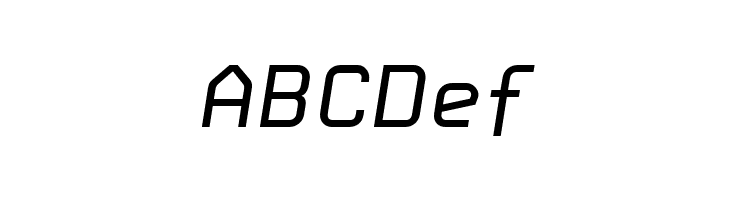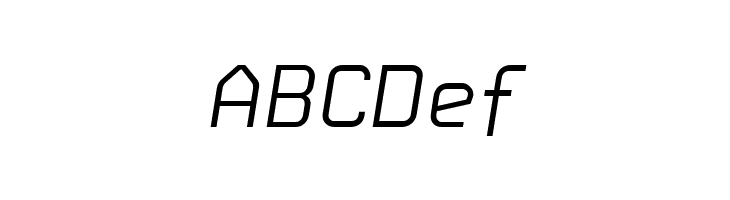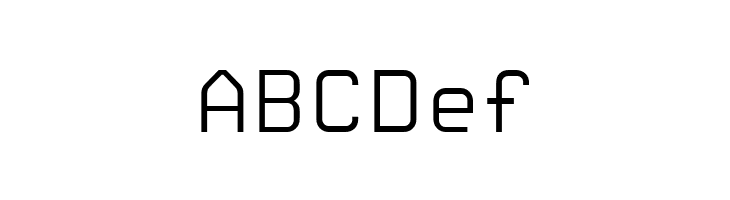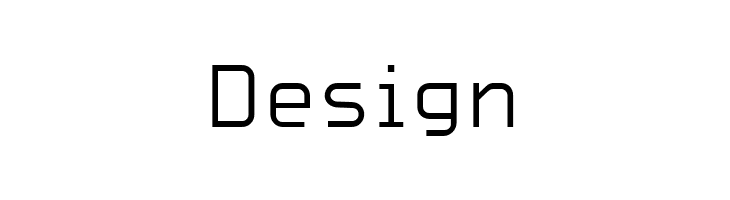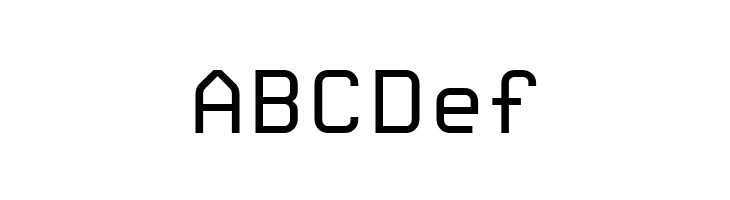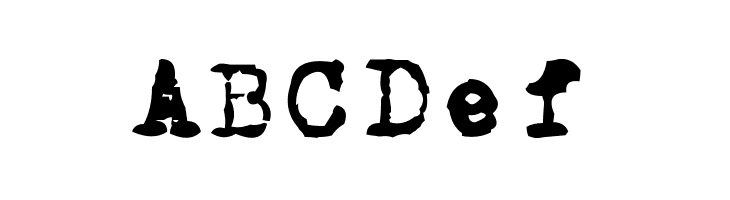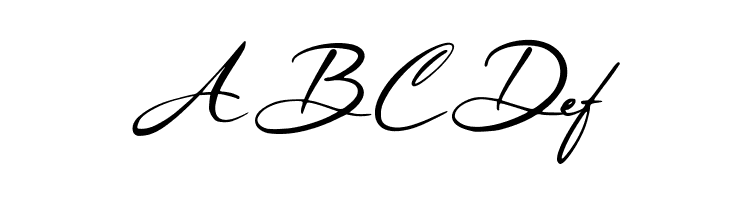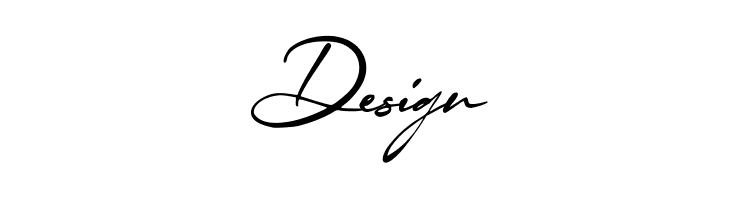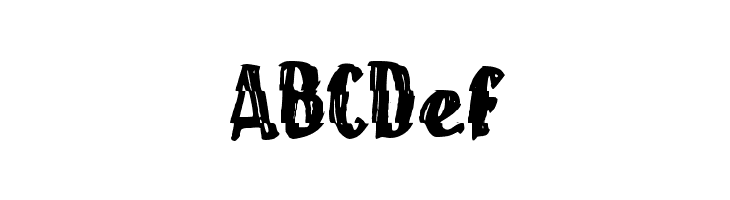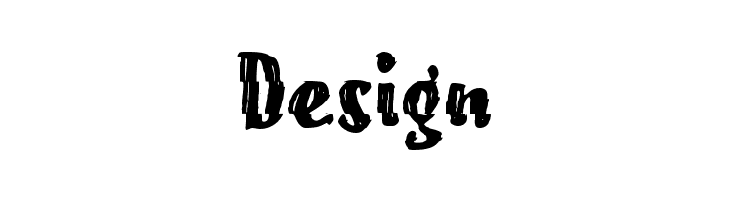
A bold, textured font with a carbon fiber pattern, perfect for modern designs.
A distressed, vintage typewriter-style font with a grunge aesthetic.
A futuristic, geometric font with consistent stroke width and angular shapes.
A bold, distressed font with a glitch-like, edgy appearance.
A bold, angular font with a futuristic and edgy design.
A bold, hand-crafted font with irregular edges and a playful style.
A playful, casual handwritten font with smooth, rounded edges.
A modern handwritten font with a playful and casual style.
A playful, handwritten font with smooth, flowing lines and a casual style.
A cursive, handwritten font with elegant, flowing characters.
A bold, decorative font with a wave-like pattern and 3D shadow effect.
A bold, decorative font with a three-dimensional effect and intricate patterns.
A modern, clean sans-serif font with uniform strokes and a slightly condensed width.
A modern sans-serif font with clean lines and excellent readability.
A modern sans-serif font with a clean, professional look and slightly condensed structure.
An elegant, flowing script font with ornate uppercase letters and smooth, cursive lowercase letters.
A graceful and elegant script font with fluid, flowing lines.
An ornate, medieval-inspired font with intricate flourishes and sharp serifs.
An ornate and decorative font with intricate flourishes and sharp serifs.
A dynamic handwritten font with fluid, elongated letterforms and a playful style.
A bold, cursive font with a flowing, handwritten style.
A classic serif font with elegant strokes and moderate contrast, ideal for traditional and scholarly texts.
A bold, handwritten font with a dynamic and textured style.
A bold, angular font with a hand-carved, ancient script style.
A bold, angular font with a geometric and modern style.
A modern, geometric font with a clean and professional appearance.